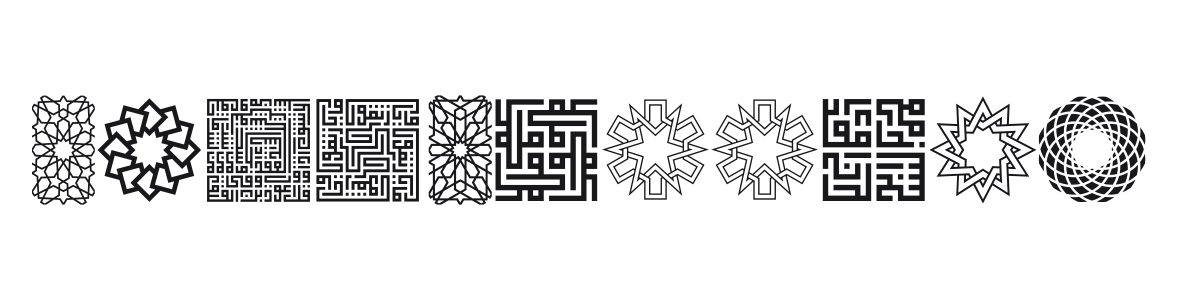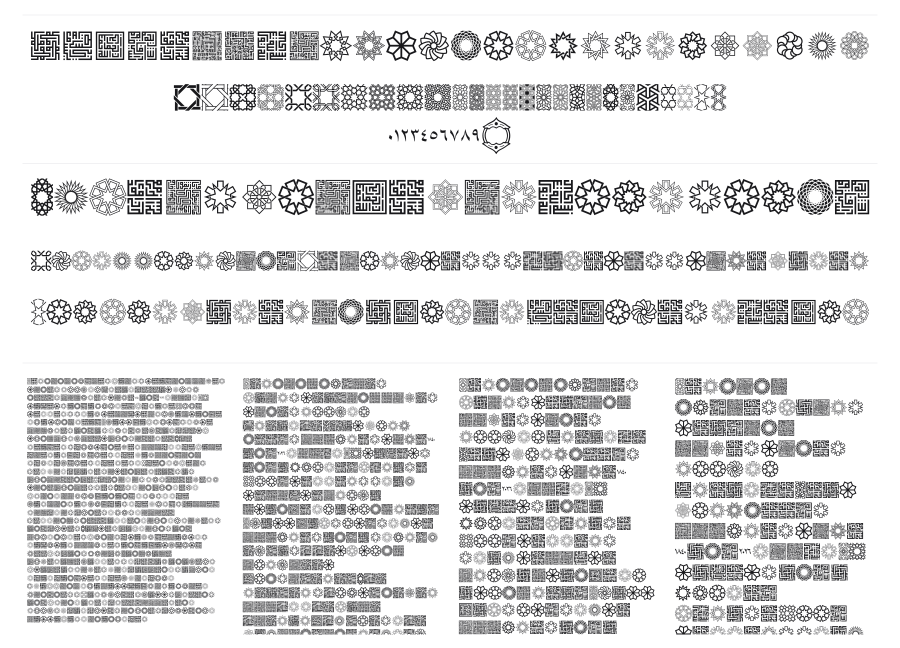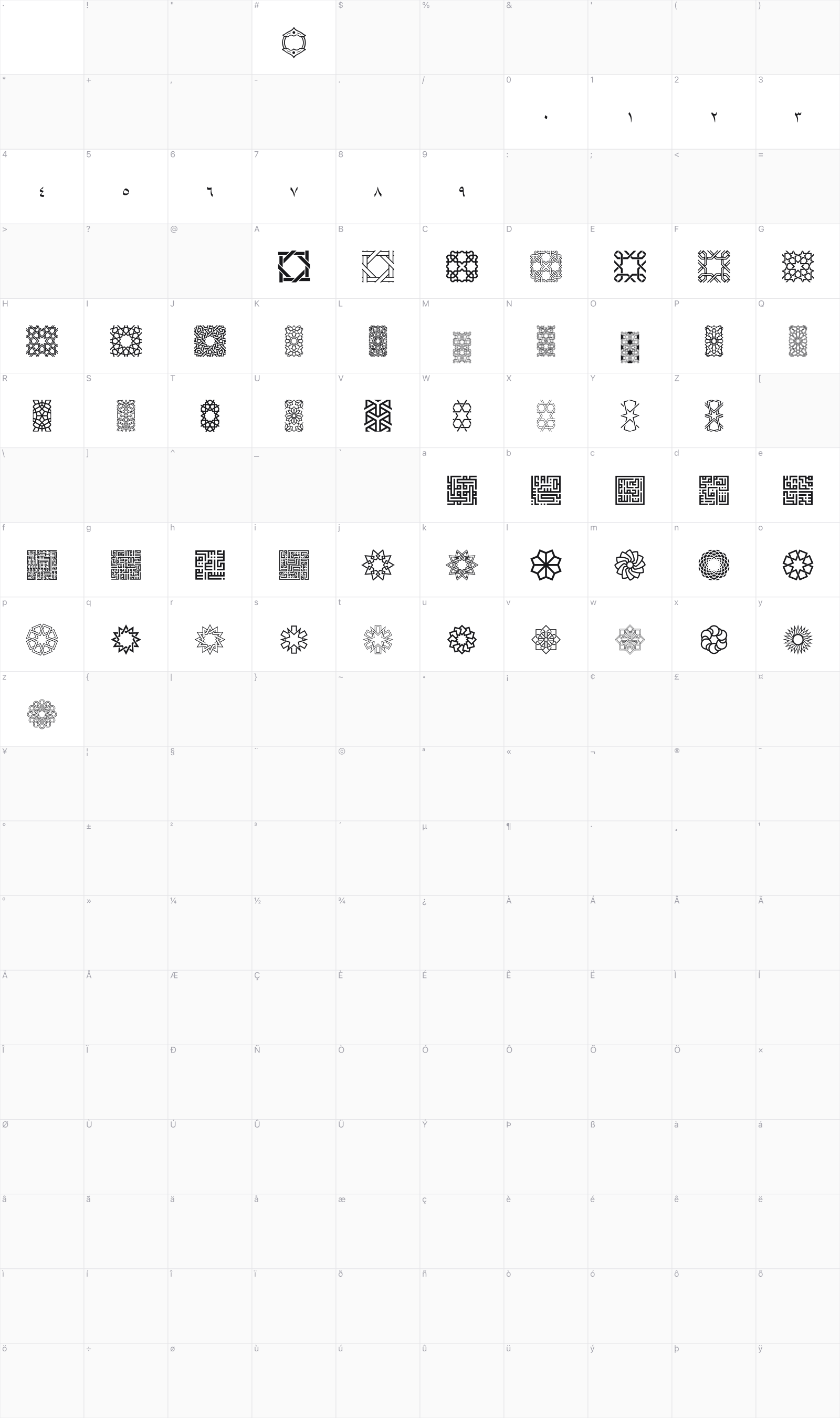
Kufi Pattern
Kufi Pattern is a dingbat font of geometric ornaments rooted in classical Islamic and Kufic design traditions. Each glyph is a self-contained tile or medallion built from interlocking star polygons, maze-like lattices, and radially symmetric forms drawn in clean outline strokes. The collection spans square and circular compositions, giving designers a versatile toolkit for borders, backgrounds, and decorative accents.